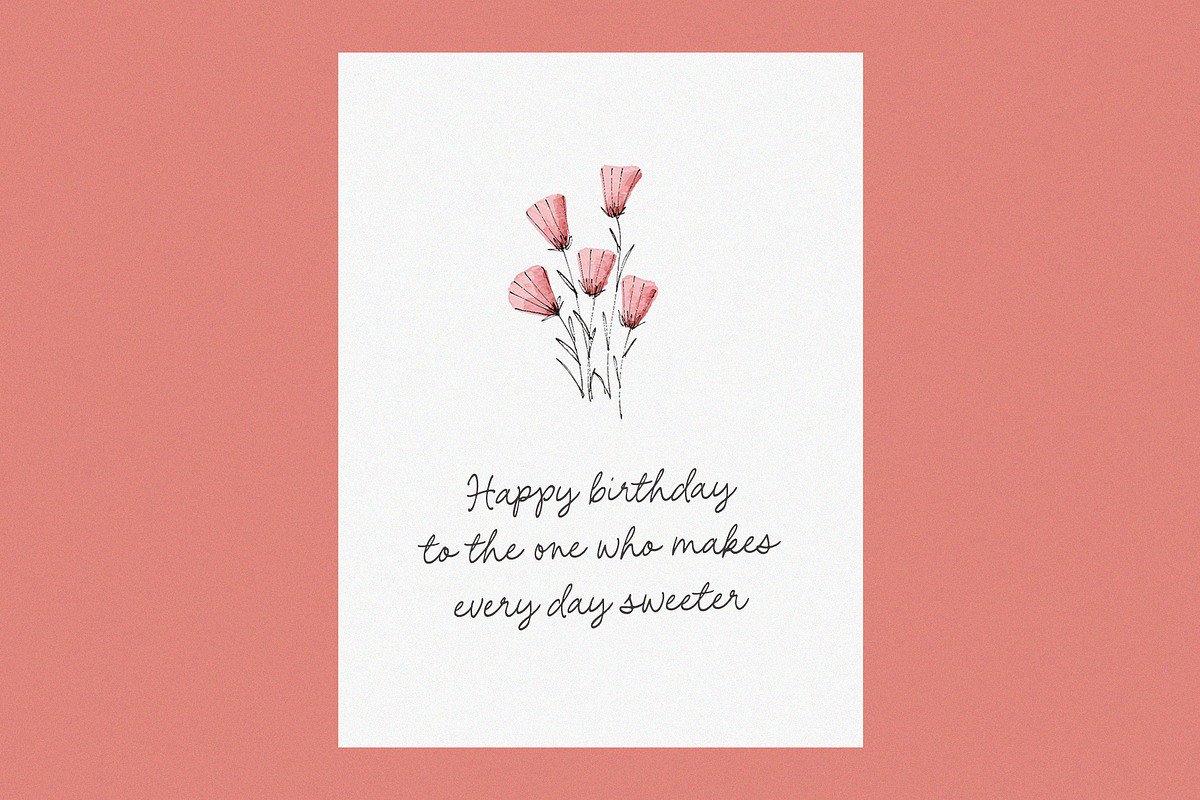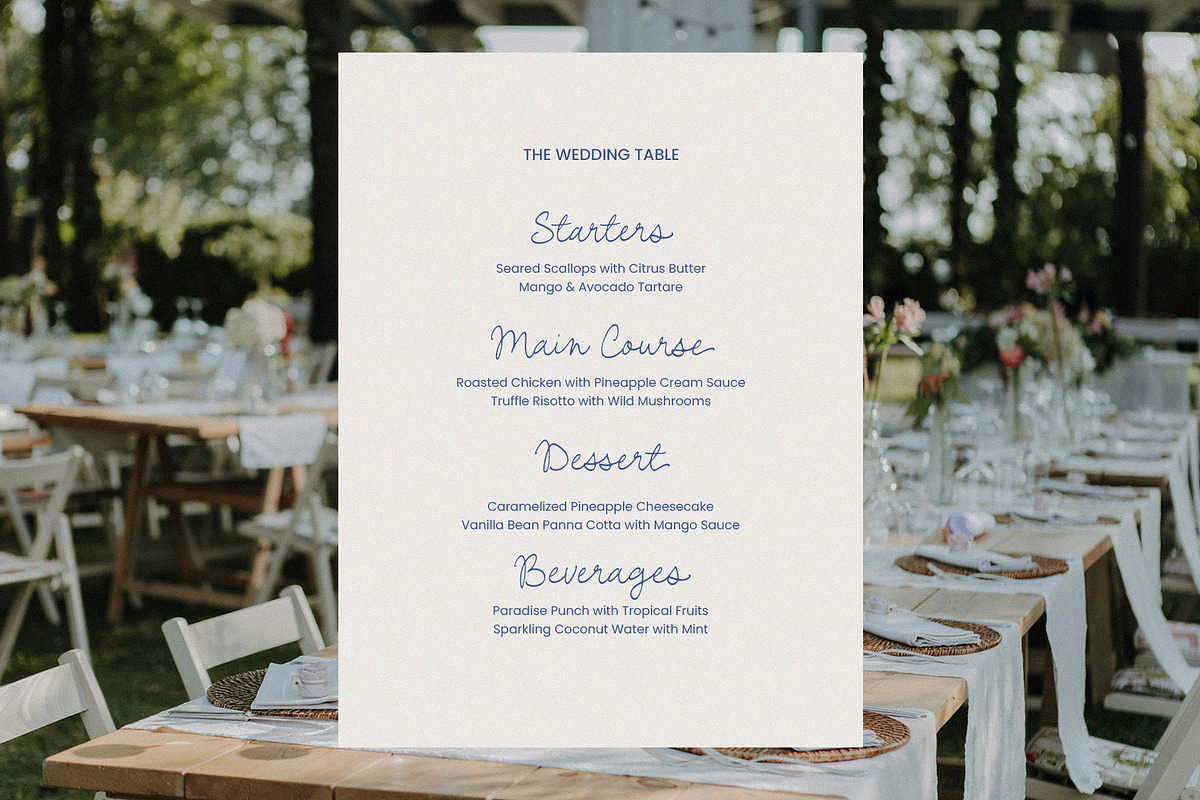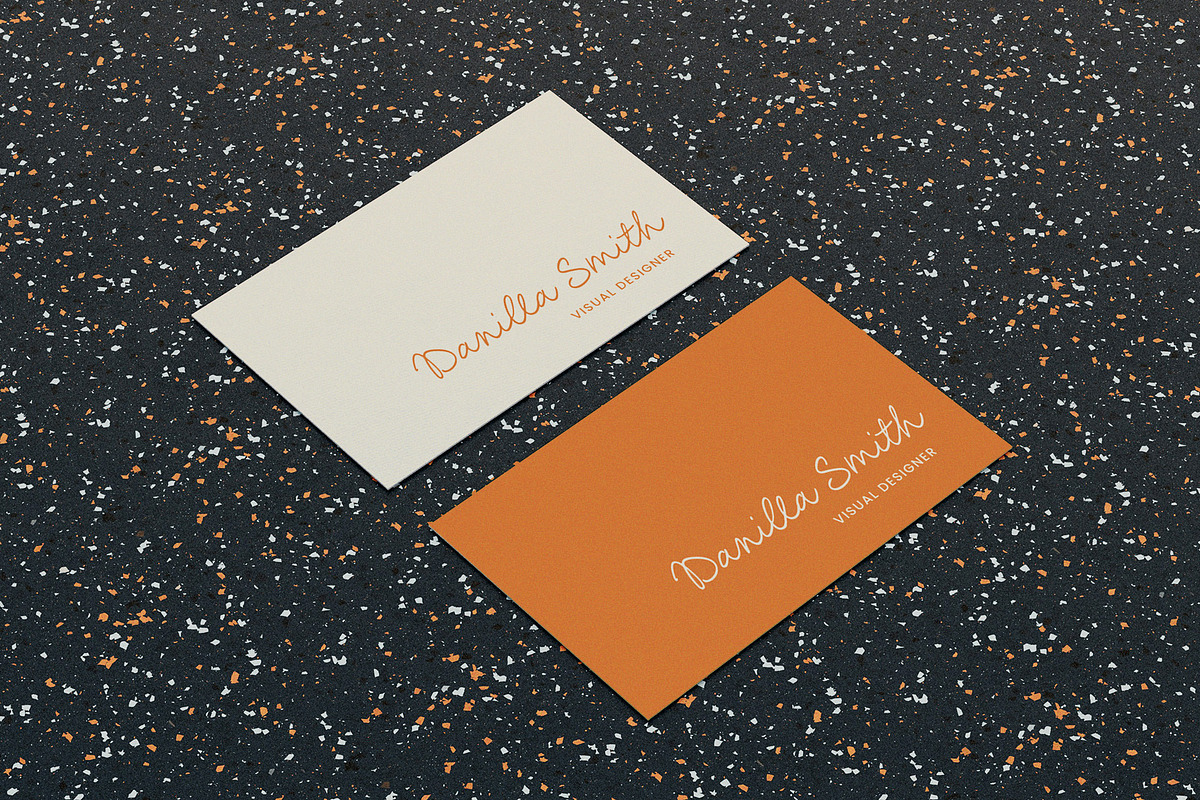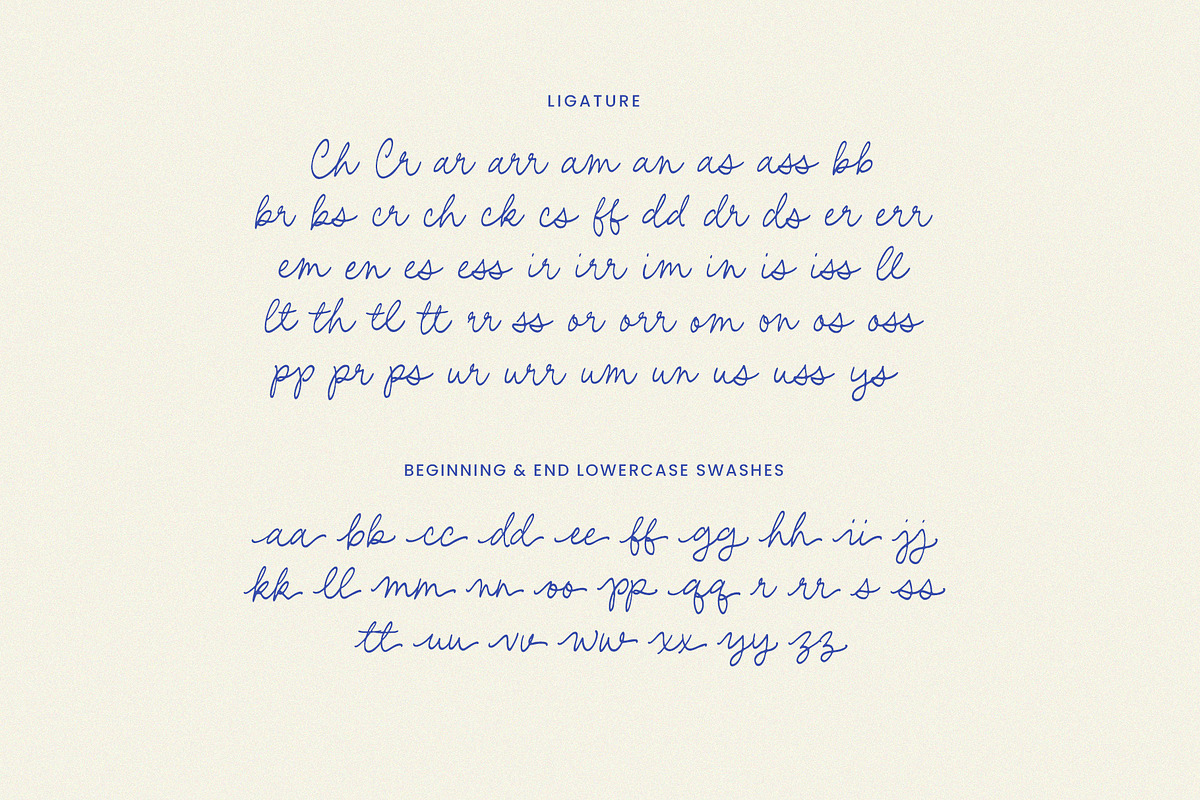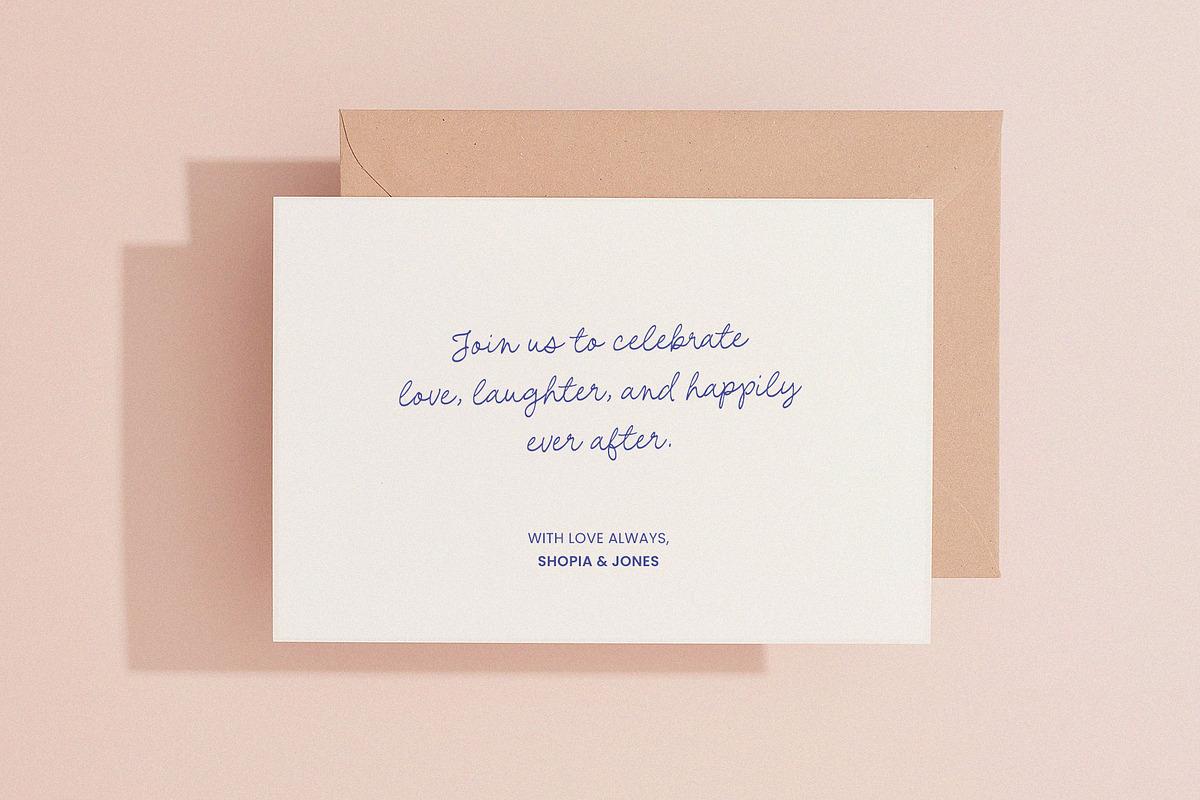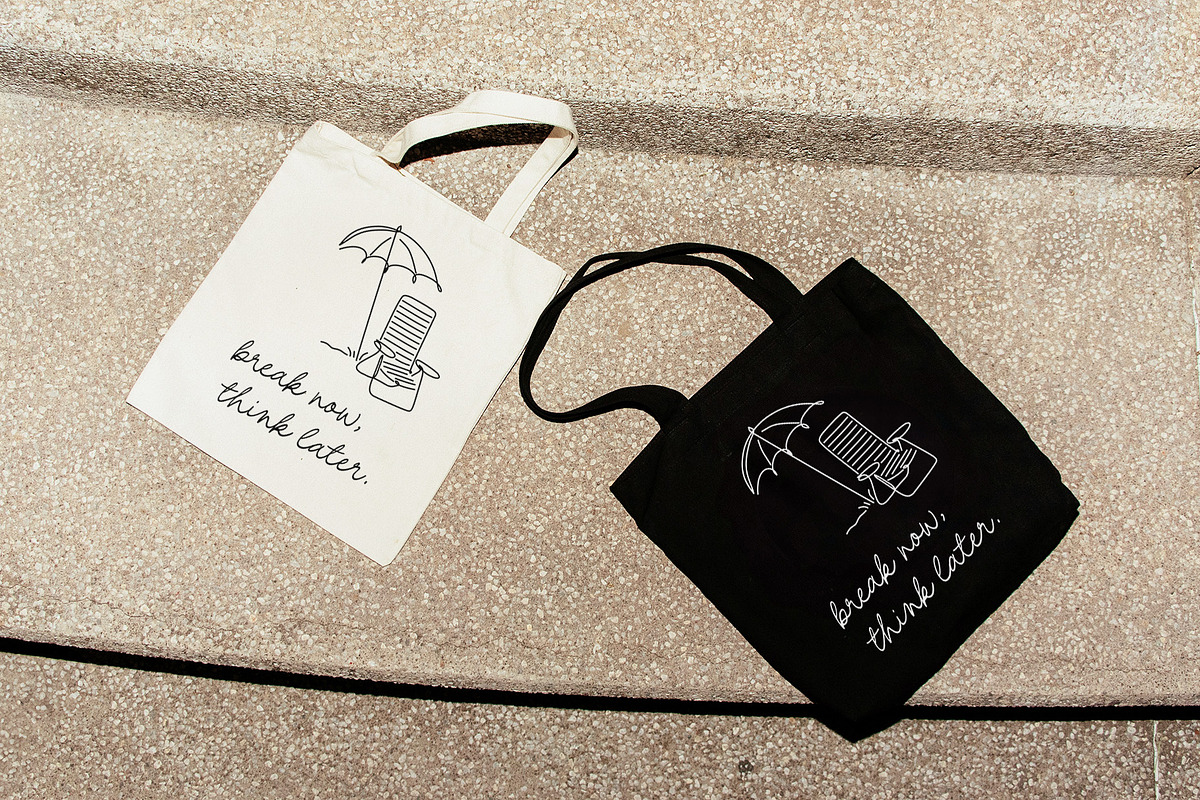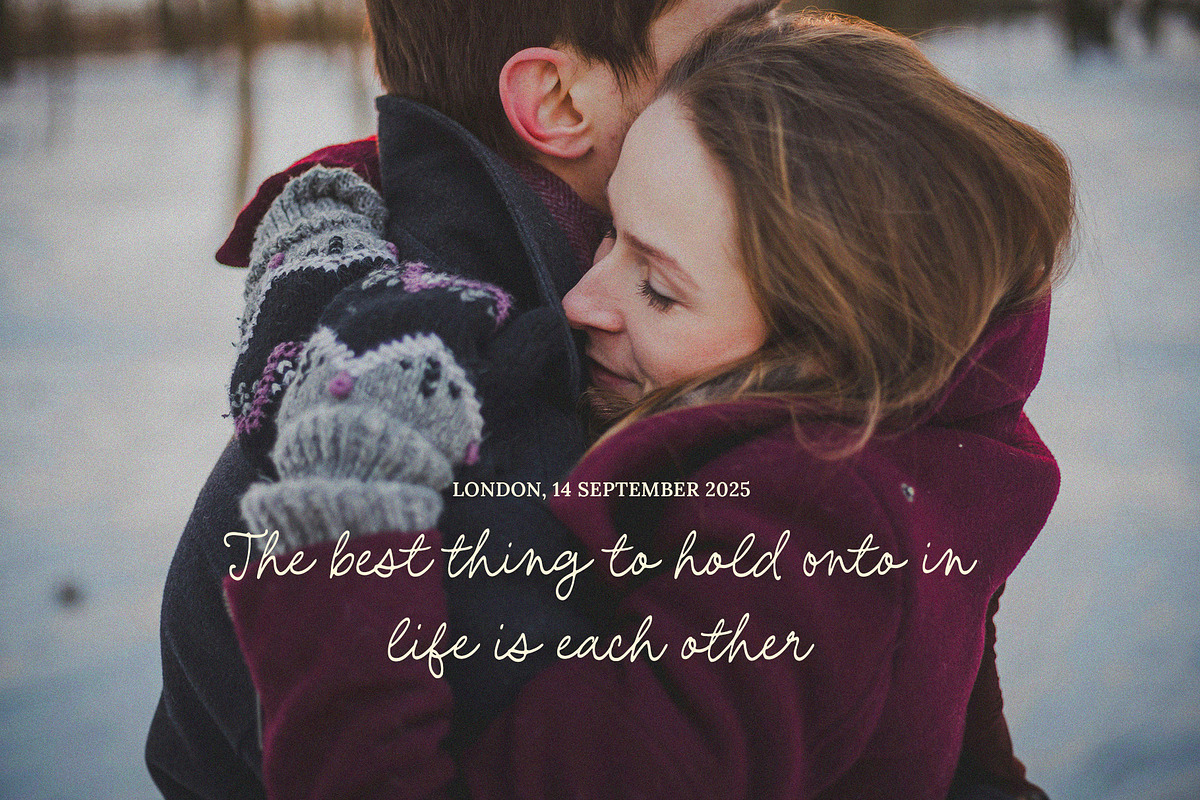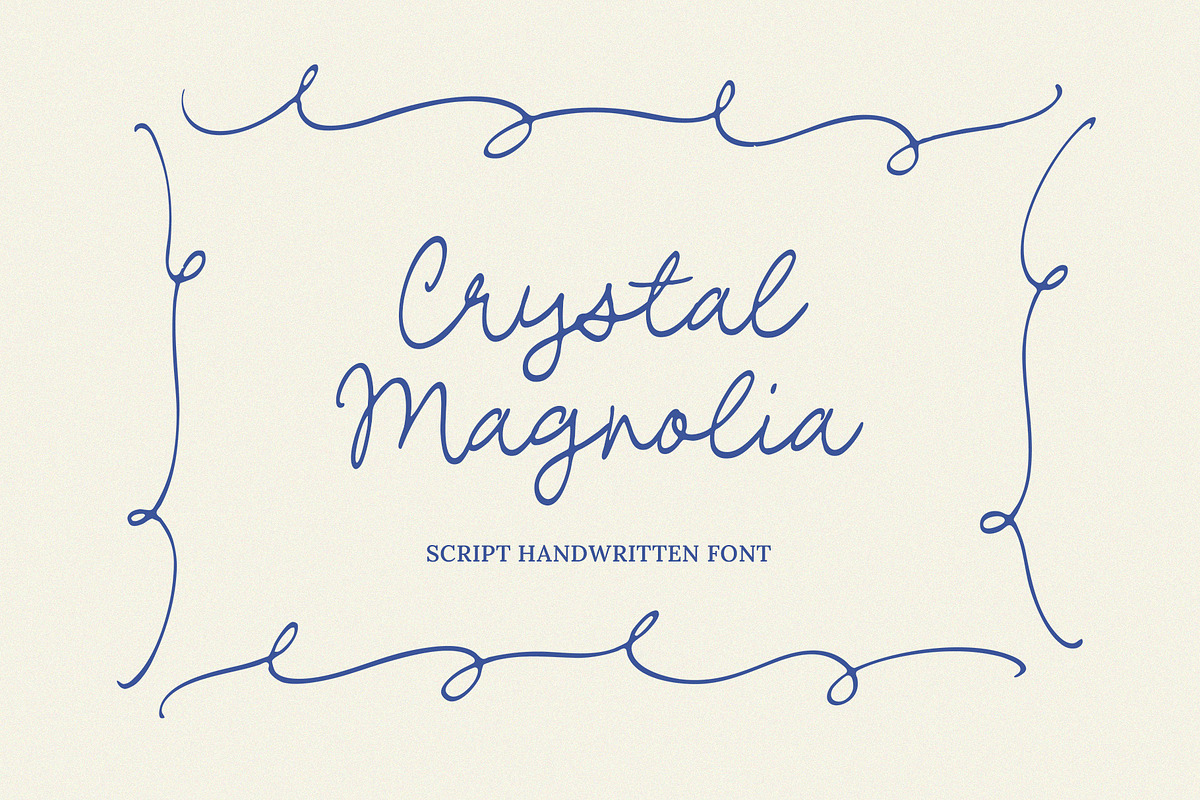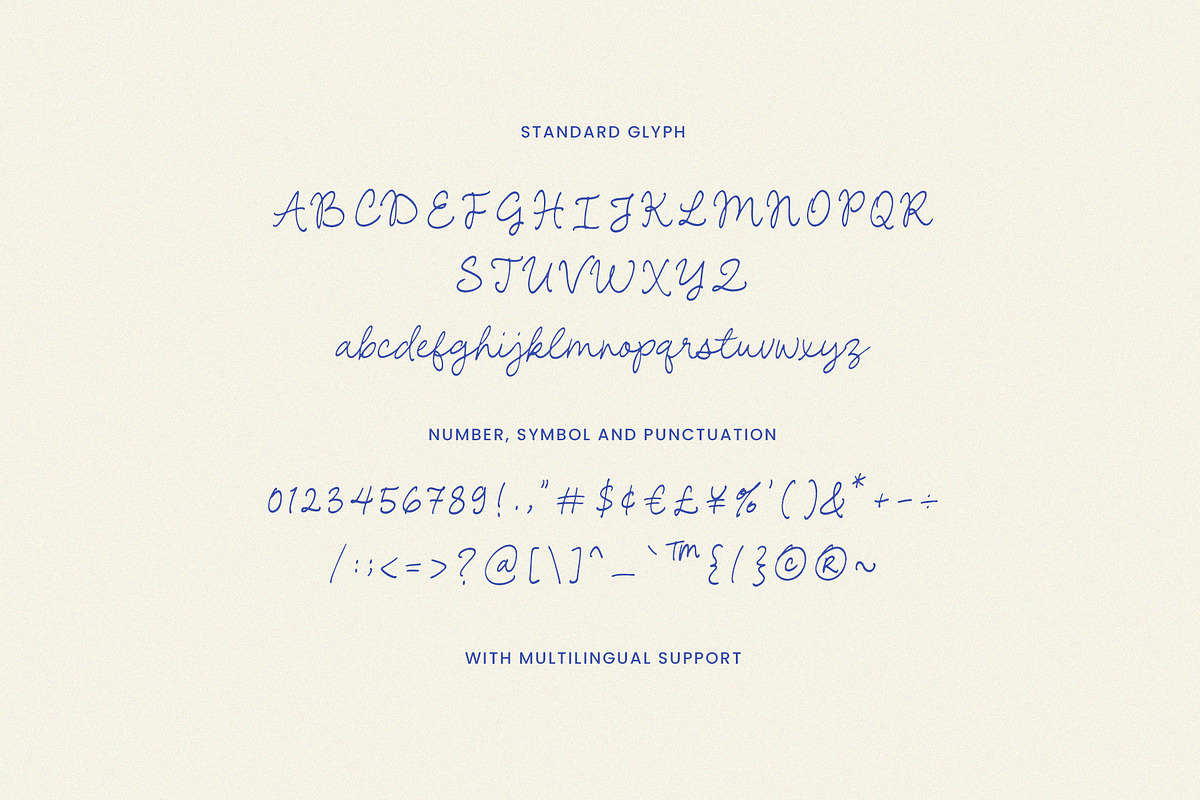
Crystal Magnolia Script Font
Hello everyone, I would like to introduce Crystal Magnolia a elegant casual script font.
Crystal Magnolia can be used for a variety of projects such as branding, photography, invitations, stationery, wedding designs, social media posts, advertising, product packaging, product design and other romantic projects.
Letters, numbers, symbols, punctuation, ligatures, beginning and ending
Fonts include multilingual support